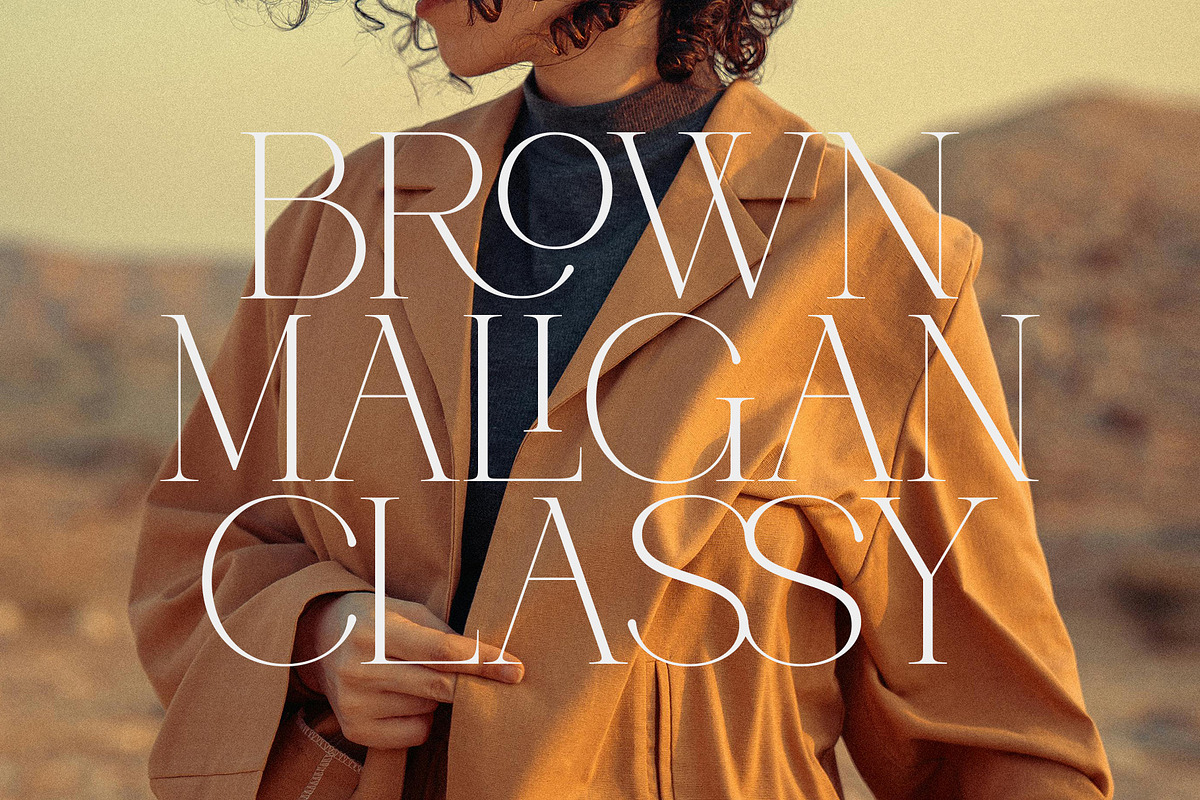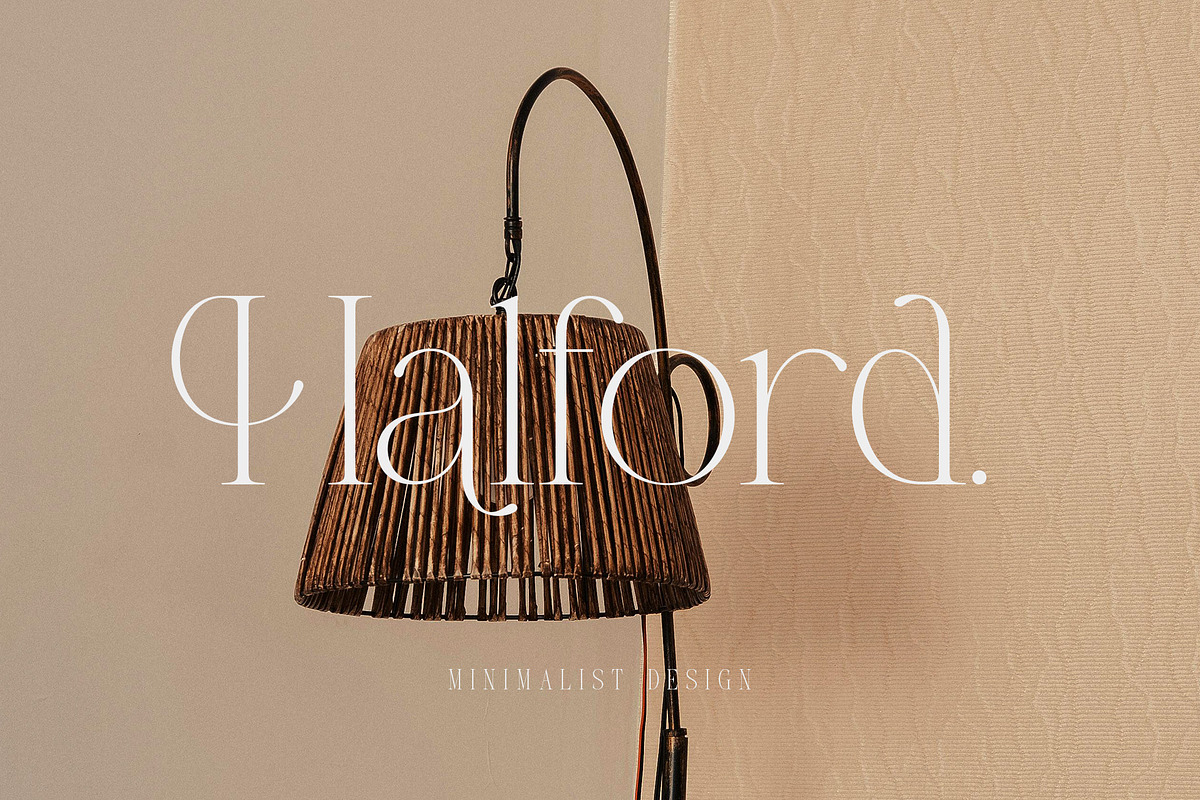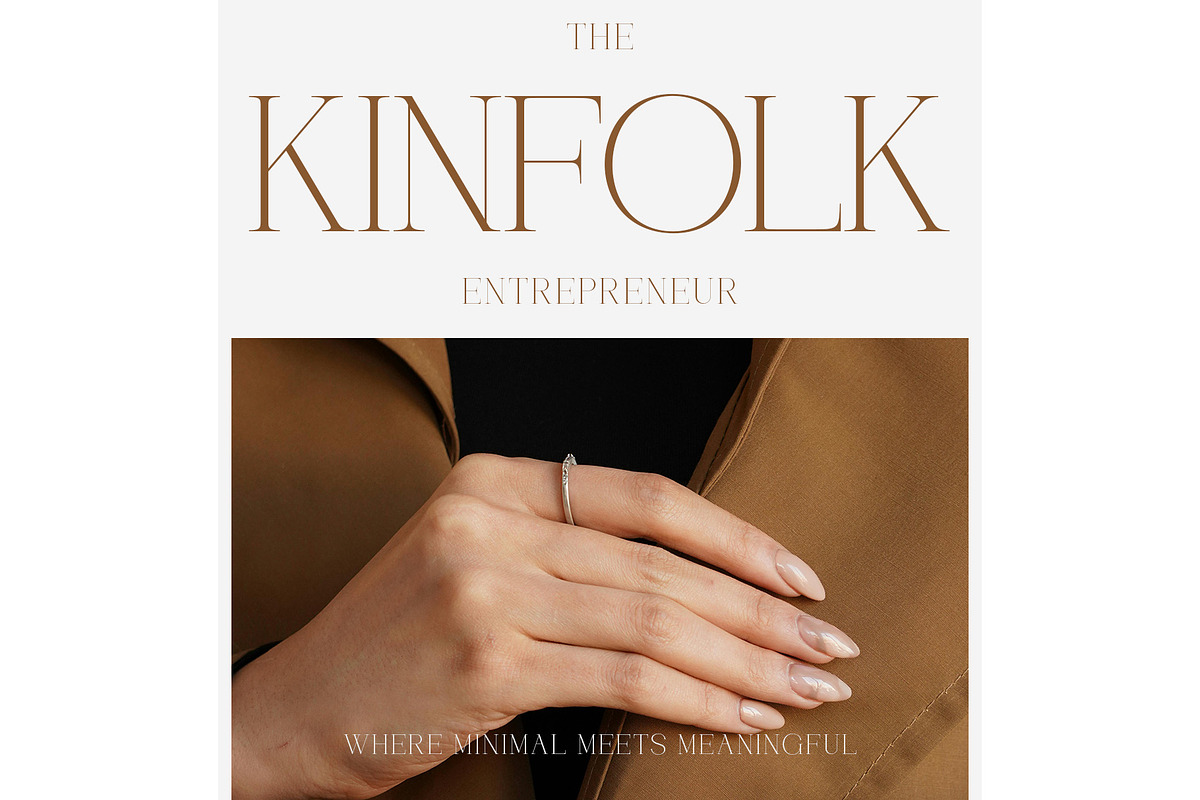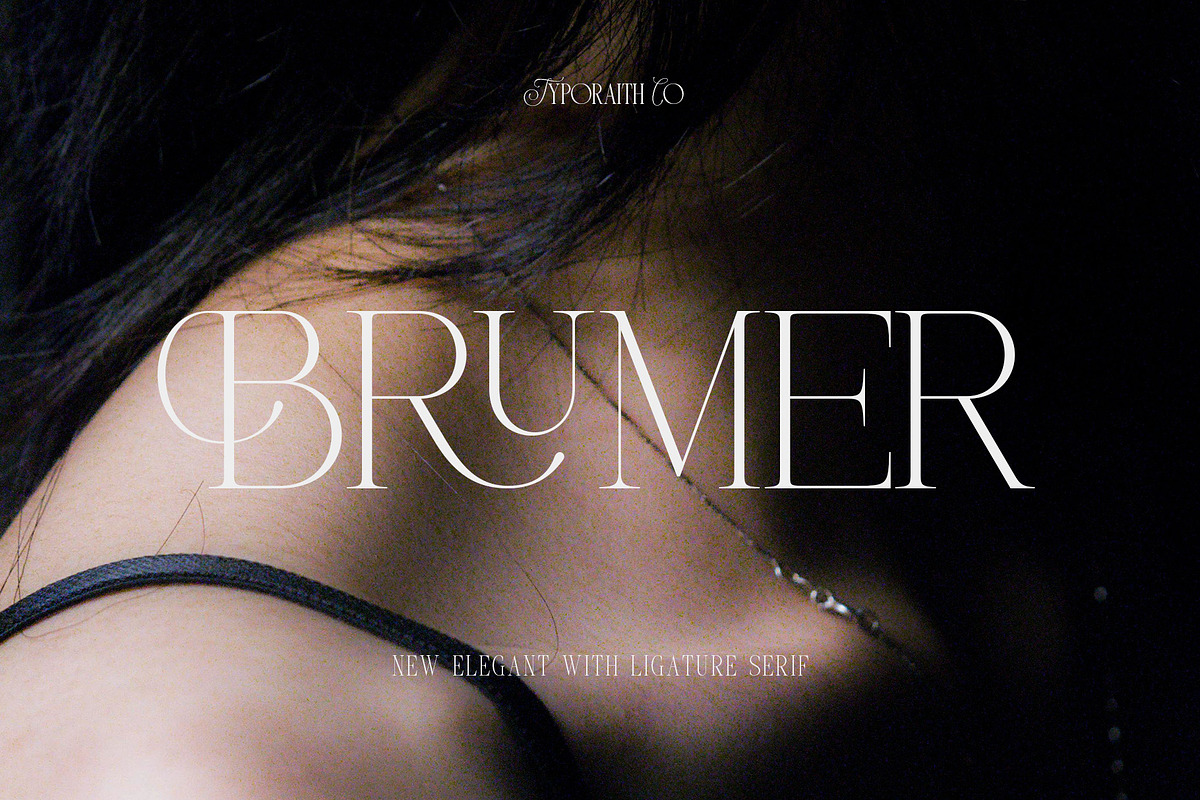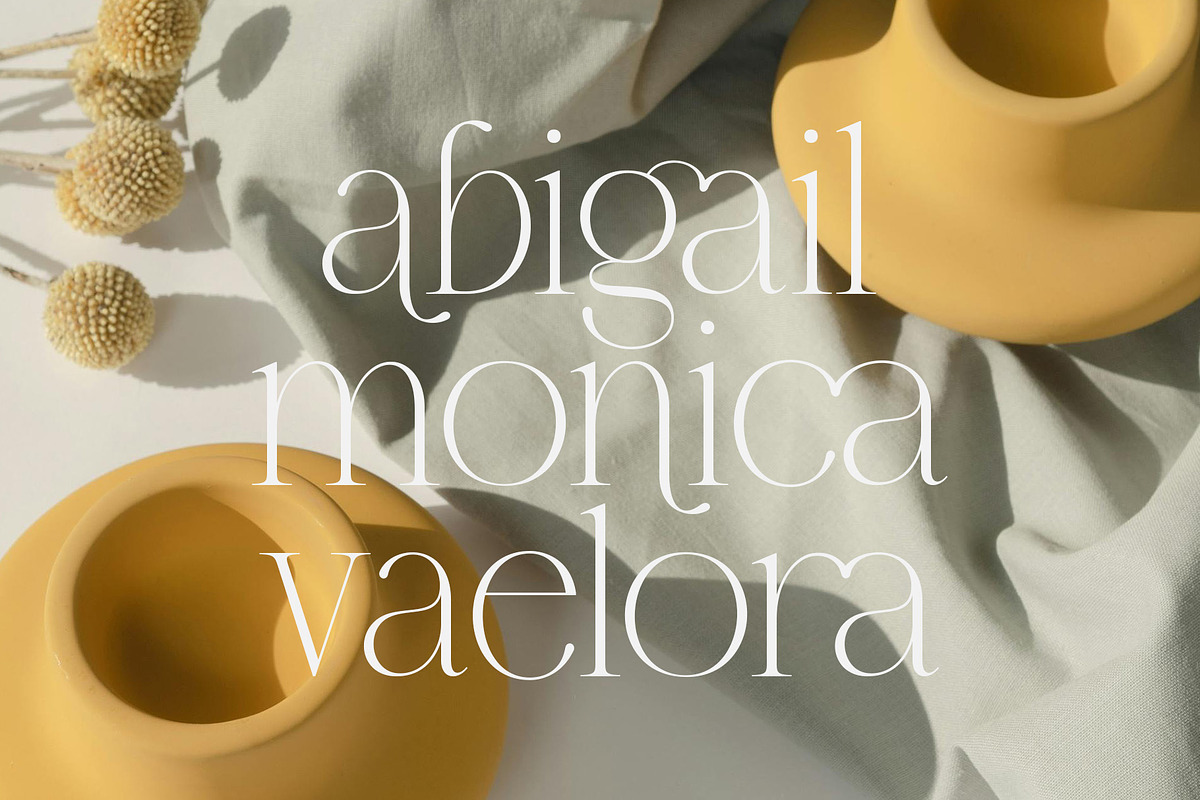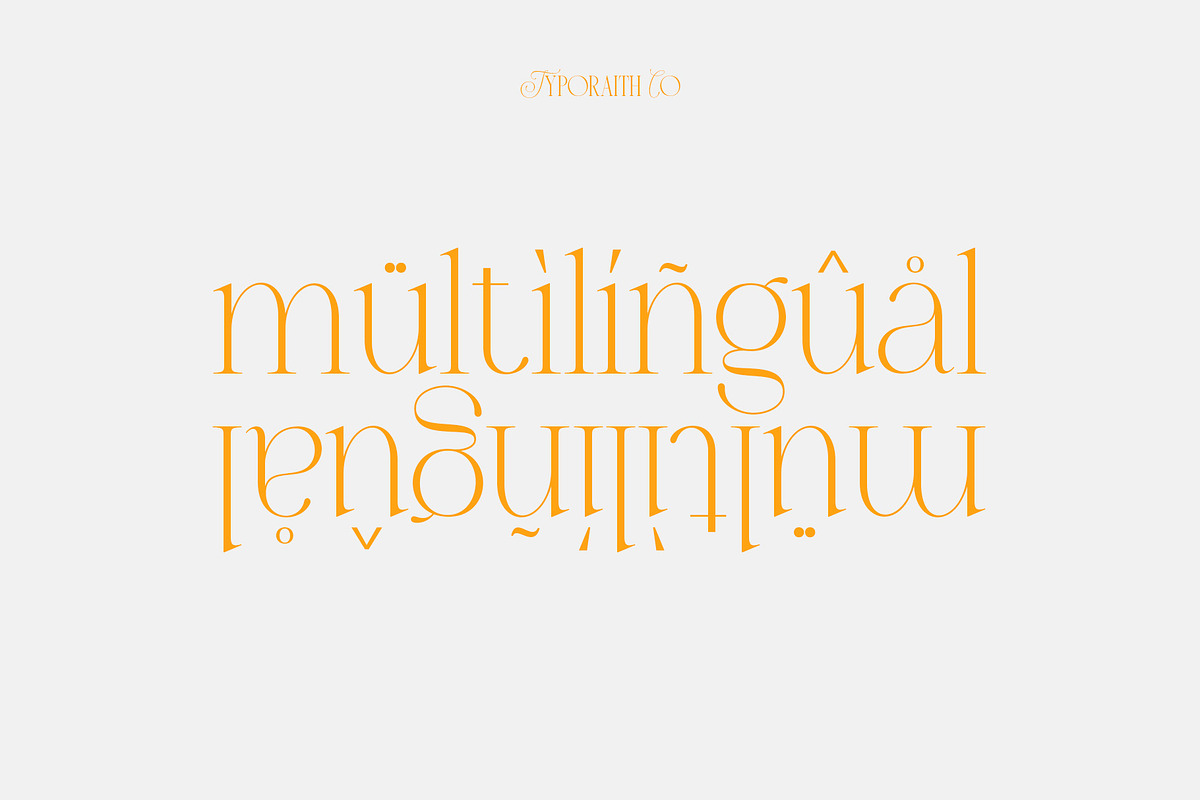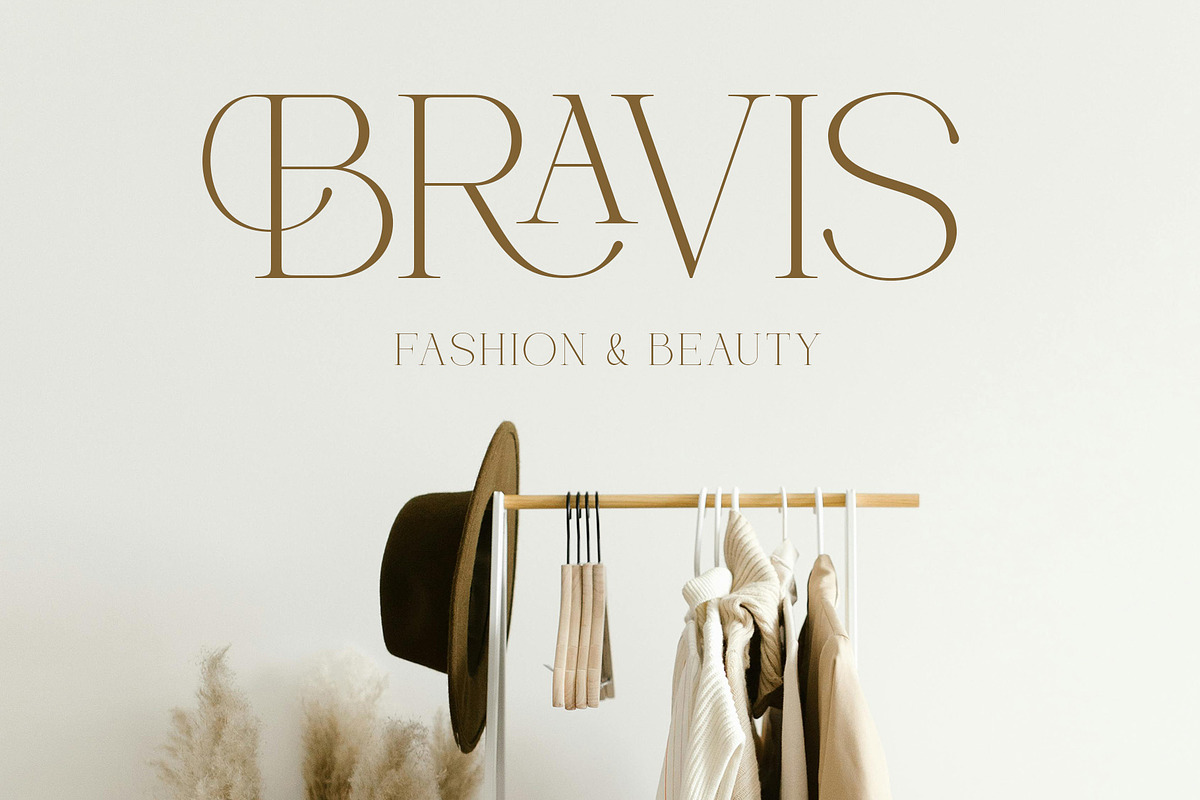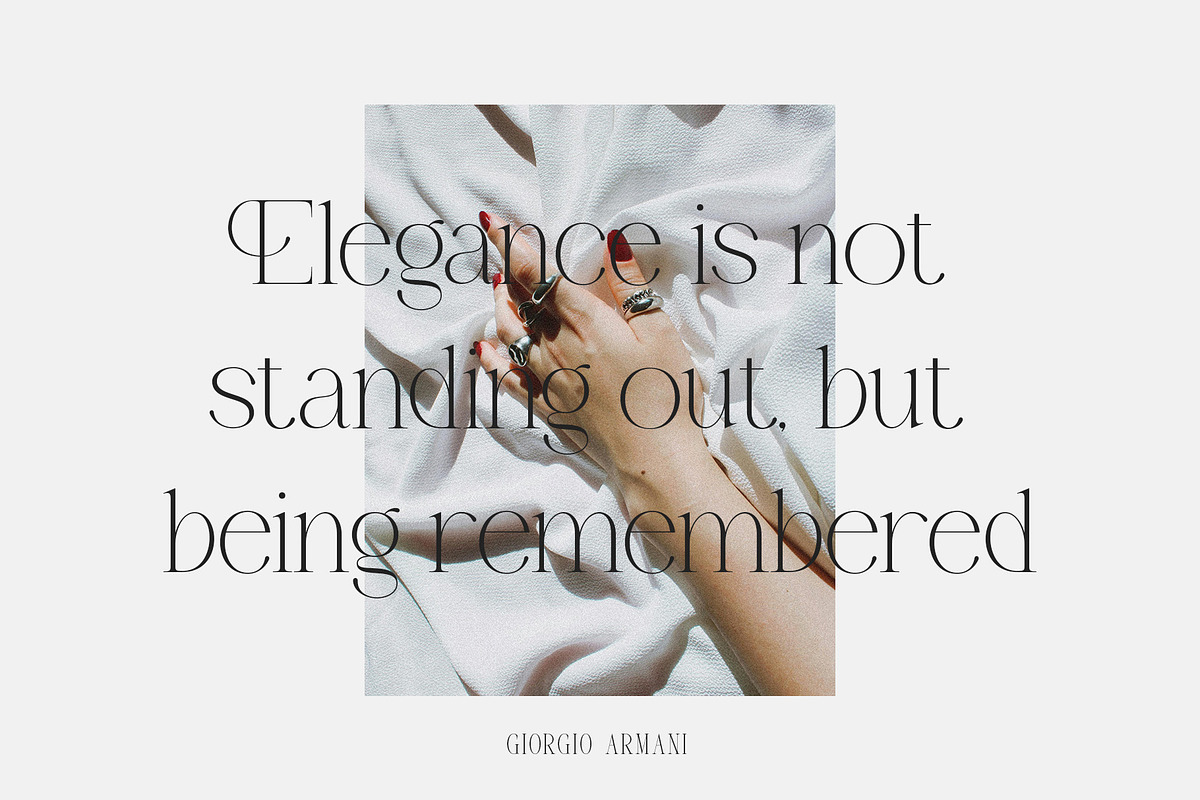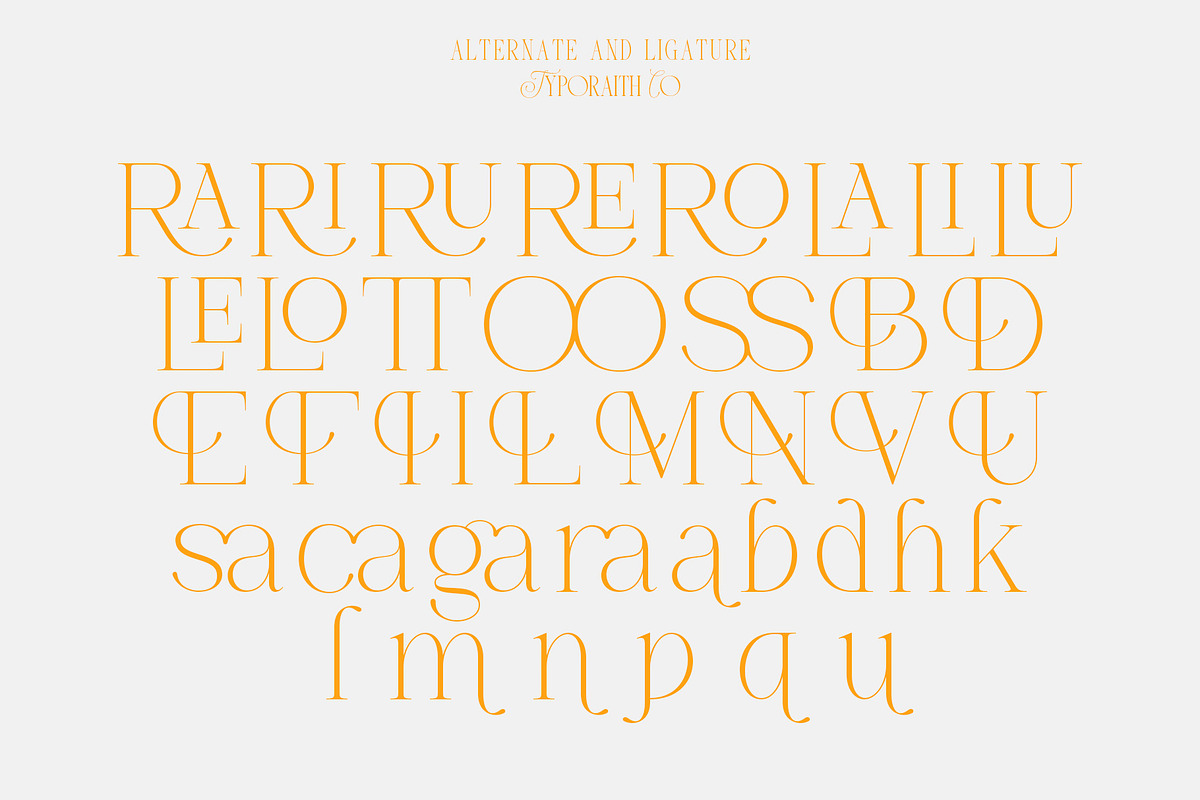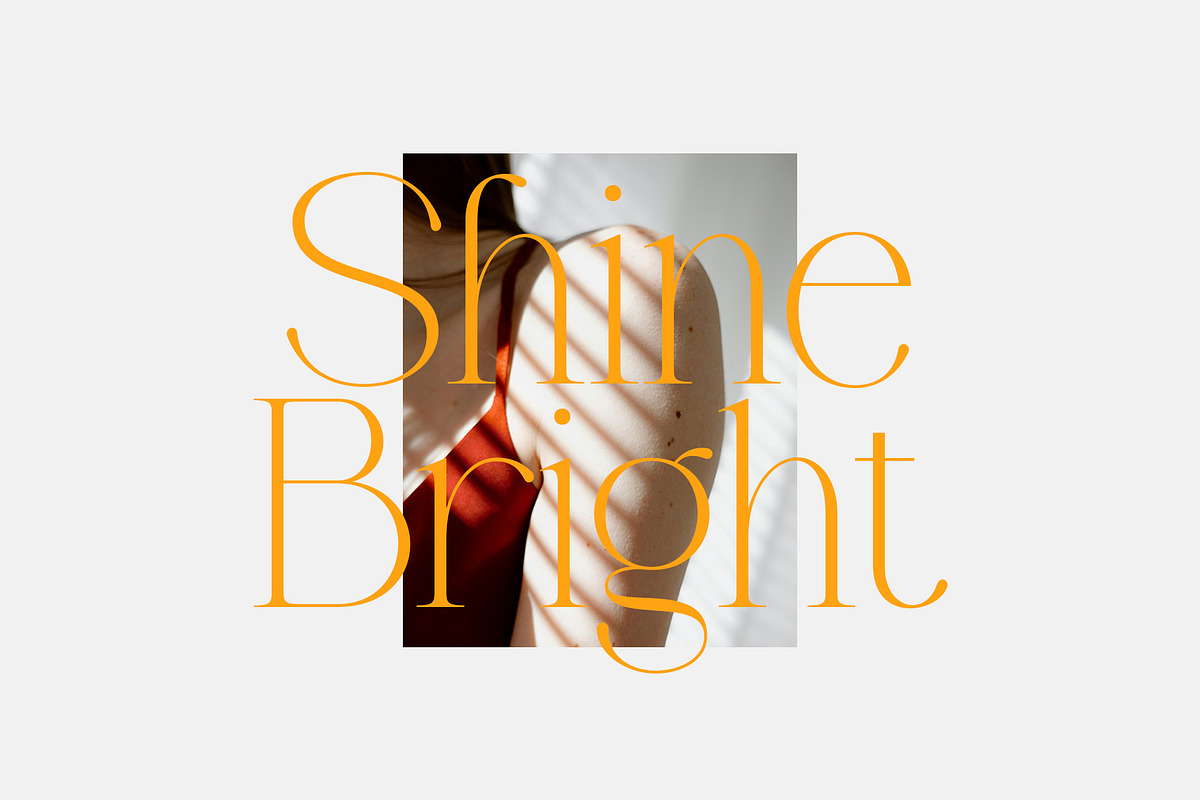
Brumer | Modern Elegant Serif
Brumer is an elegant serif font with a touch of luxurious ligatures designed to exude classic character and modern togetherness. Suitable for luxury branding projects, wedding invitations, editorials, product packaging, to high-end fashion logos.
Uppercase & lowercase
Ligatures & alternates
Enhance your design quality with strong and elegant characters from Brumer. Make every word stand out!